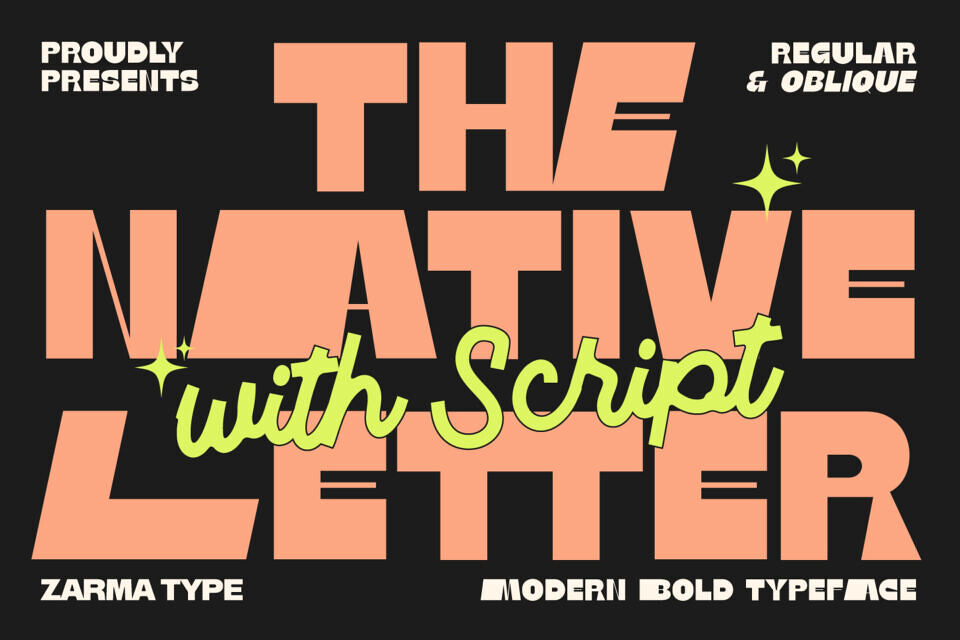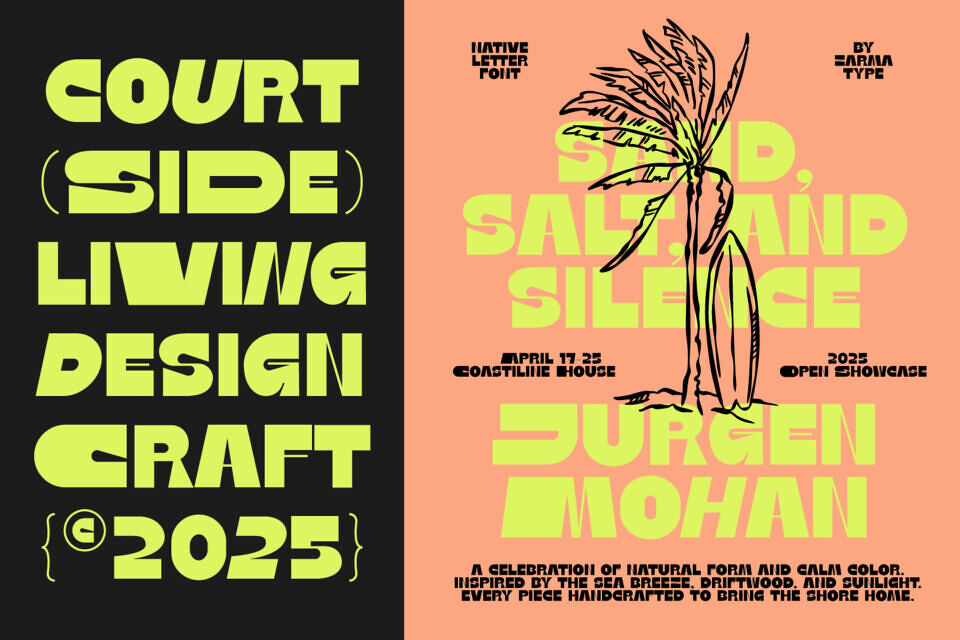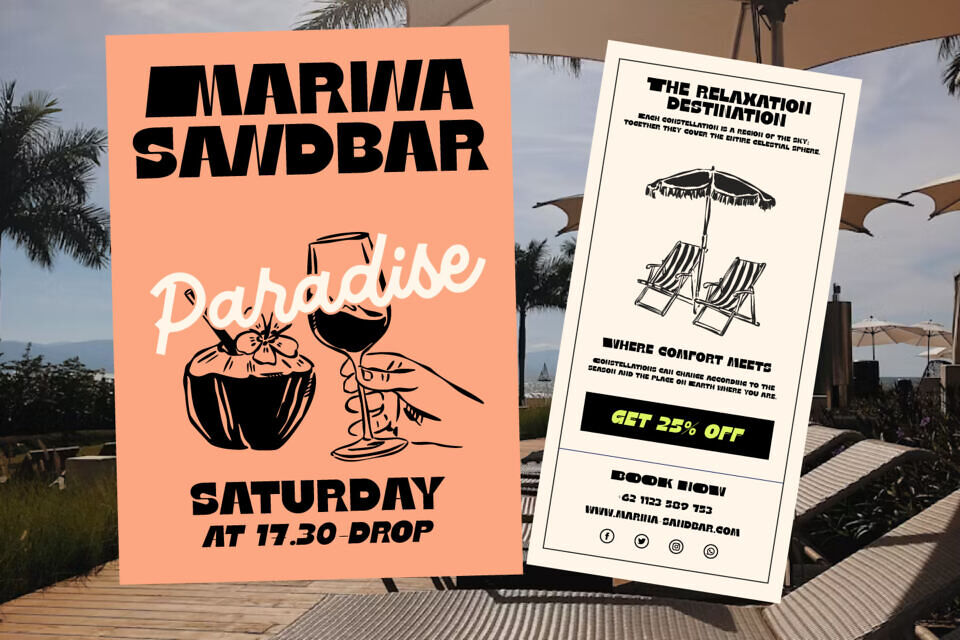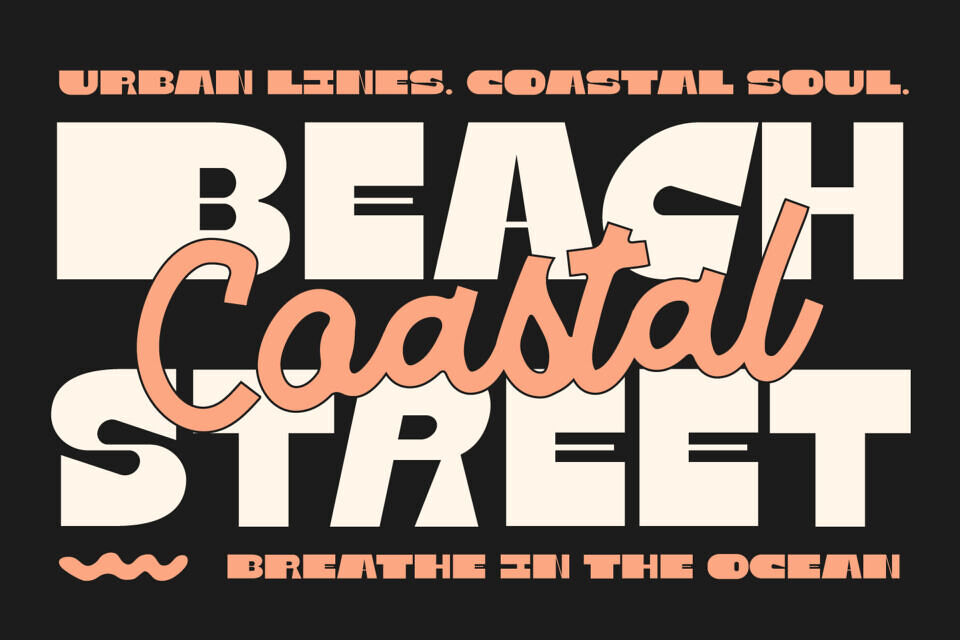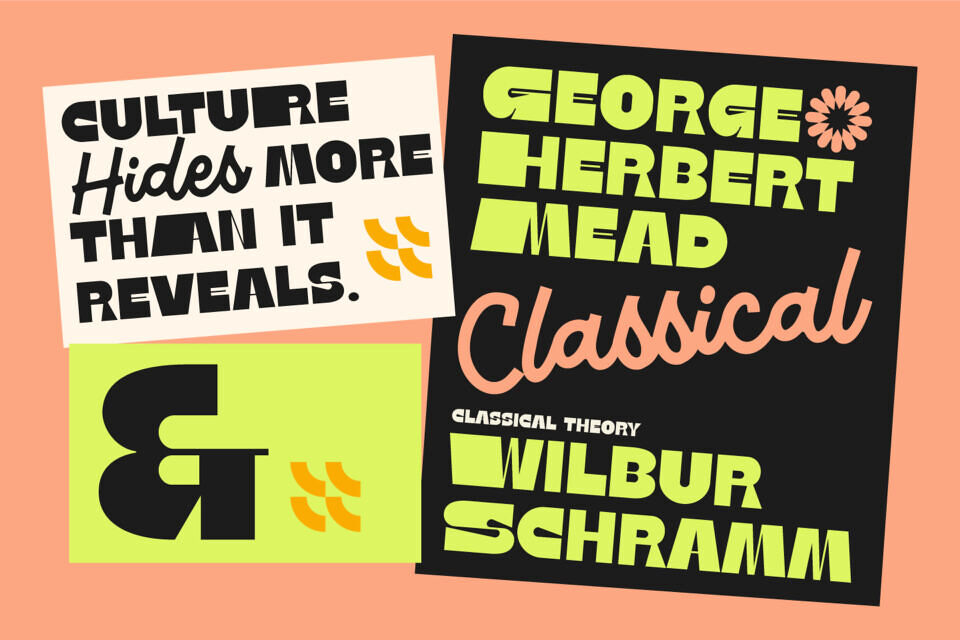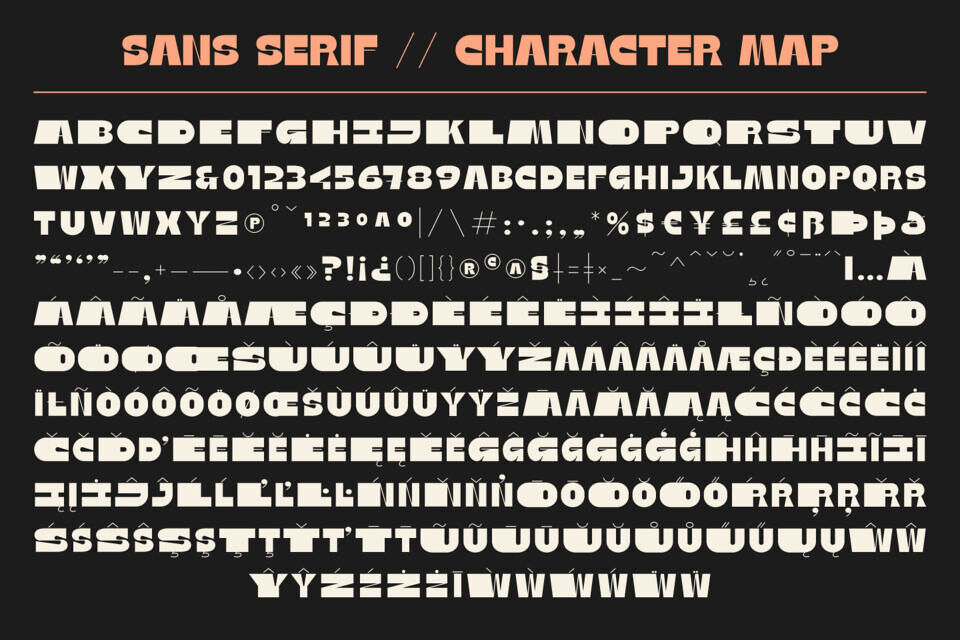
Native Letter is a modern bold font built to deliver punchy headlines and sun-soaked vibes in one confident voice. Its blocky sans shapes land with strong visual weight, while the flowing script companion adds friendly motion that feels handcrafted.
Together they create striking contrast for hospitality posters, travel flyers, or lifestyle branding where clarity matters but personality leads the way. With crisp forms that hold up on signs, billboards, and social graphics, this type system helps your message read fast and feel warm. Perfect for Travel posters, hospitality branding, event flyers, hotel collateral, restaurant menus, lifestyle campaigns, merch graphics, billboards, digital ads, social headers.